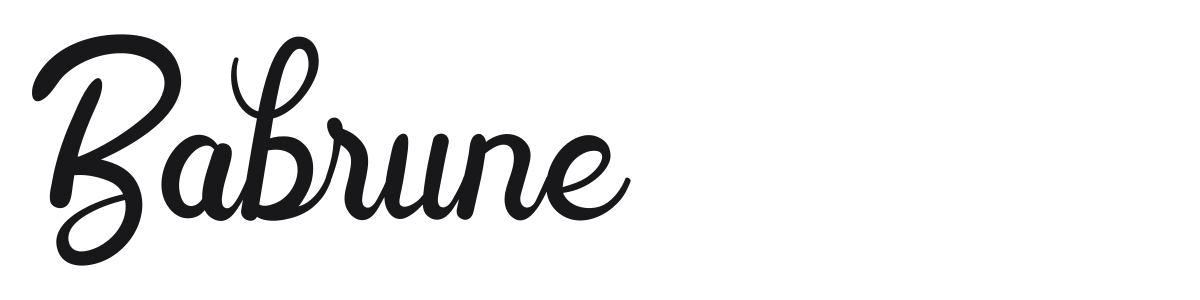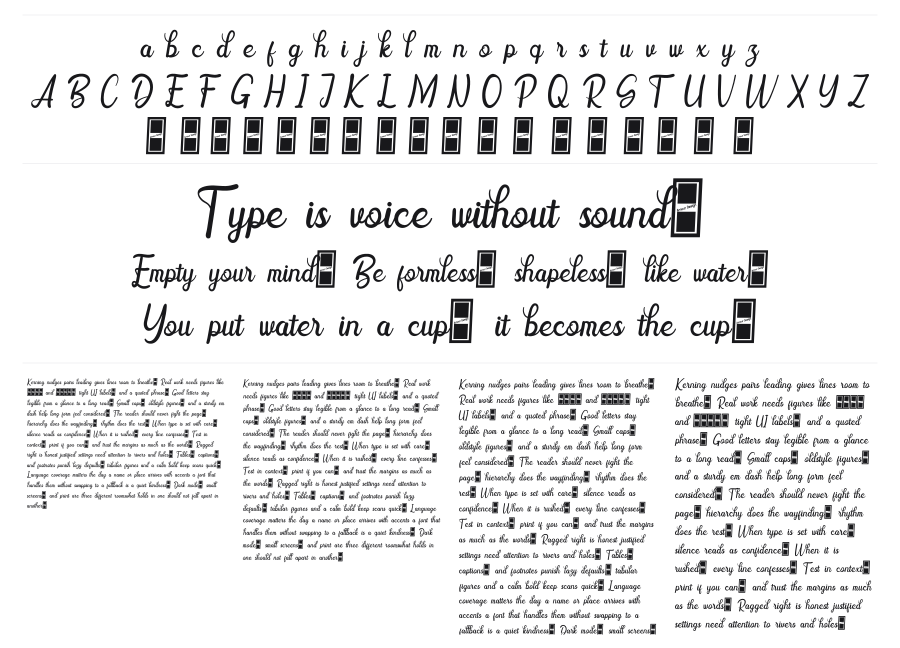
Babrune
by Murozakul Akhsan
Babrune is a smooth connected casual script with flowing strokes and a friendly handwritten feel. The consistent rhythm and looped ascenders give it a romantic, personal quality that suits wedding stationery, branding, and packaging. It reads comfortably at display sizes while keeping a natural, unpretentious character.